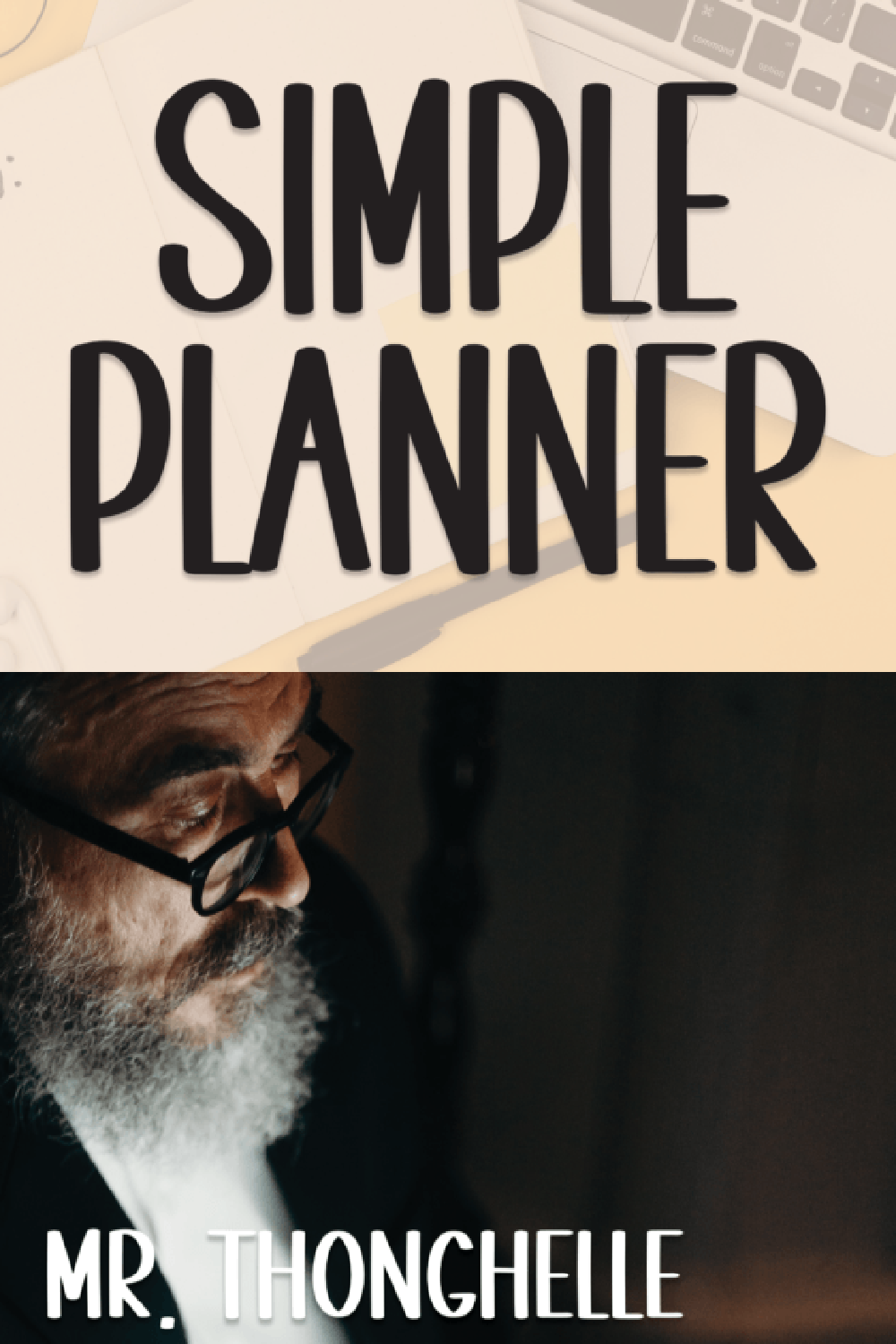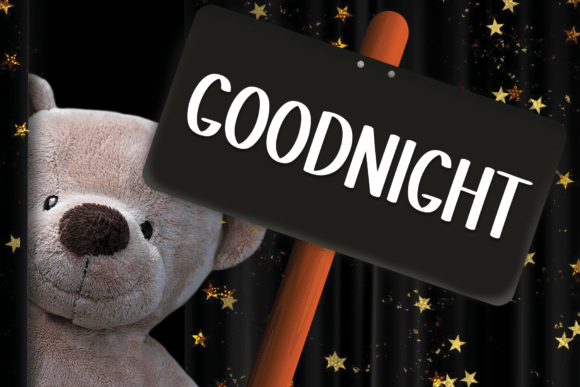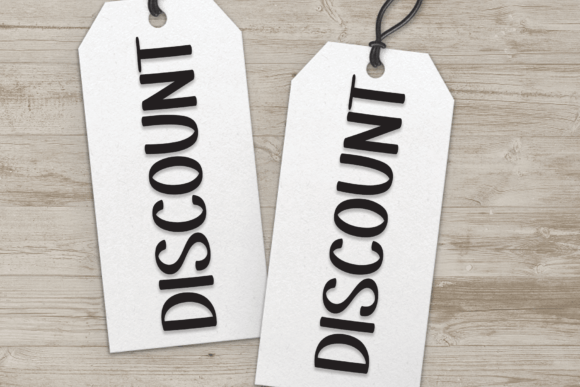
Simple Planner Font
About the Simple Planner Font
Step up your design game with Simple Planner Font, a font that exudes confidence and style. SImple Planner is a fun and casual handwritten font. Incredibly versatile, this font is suitable for a wide pool of design ideas.
Simple Planner Font Usage Examples